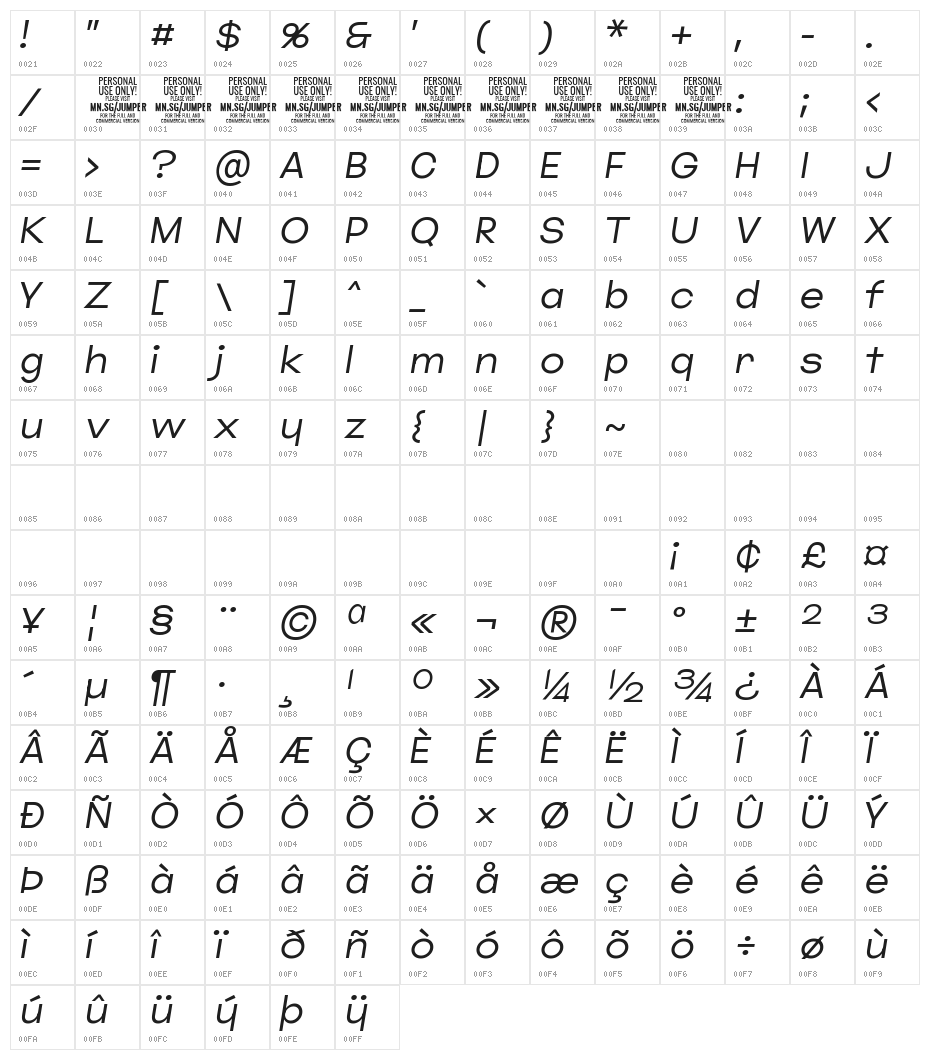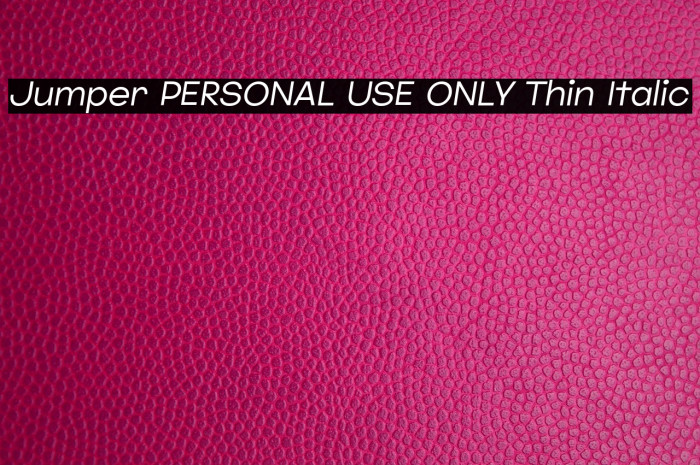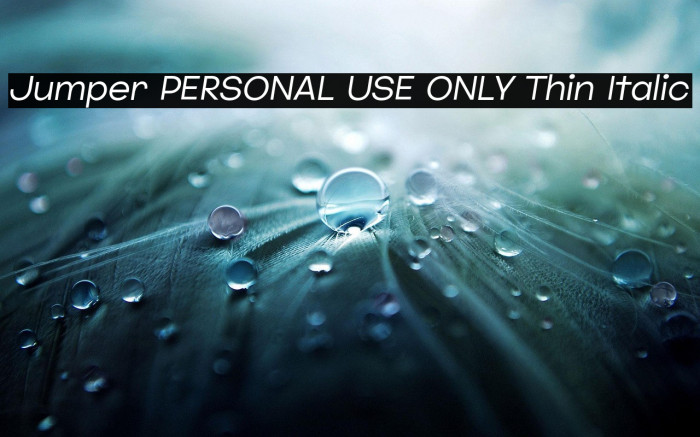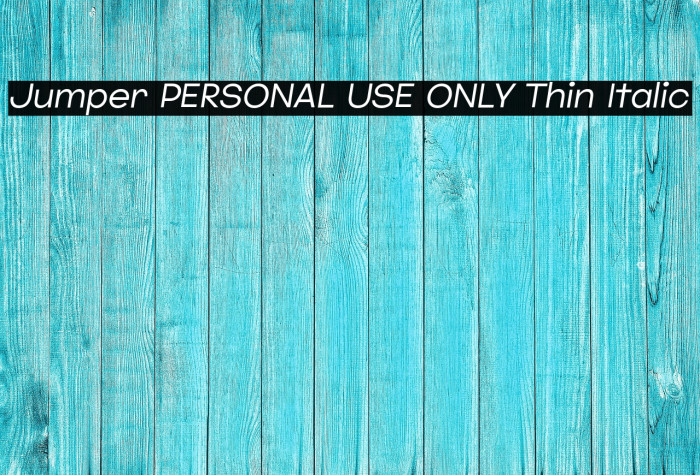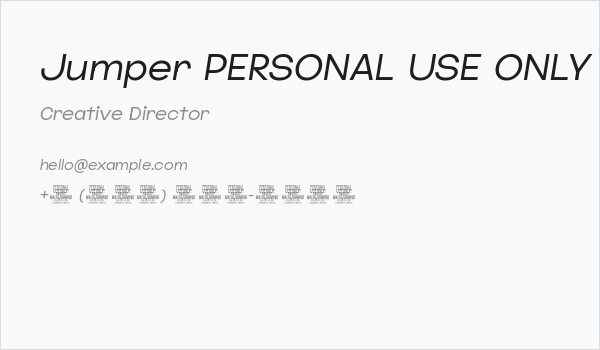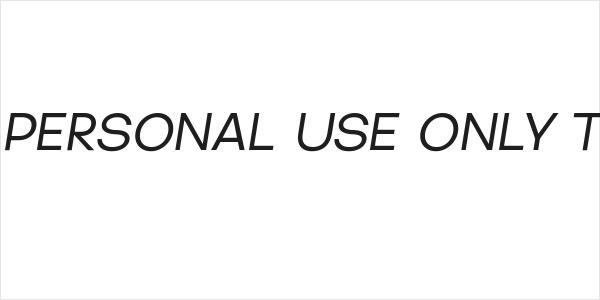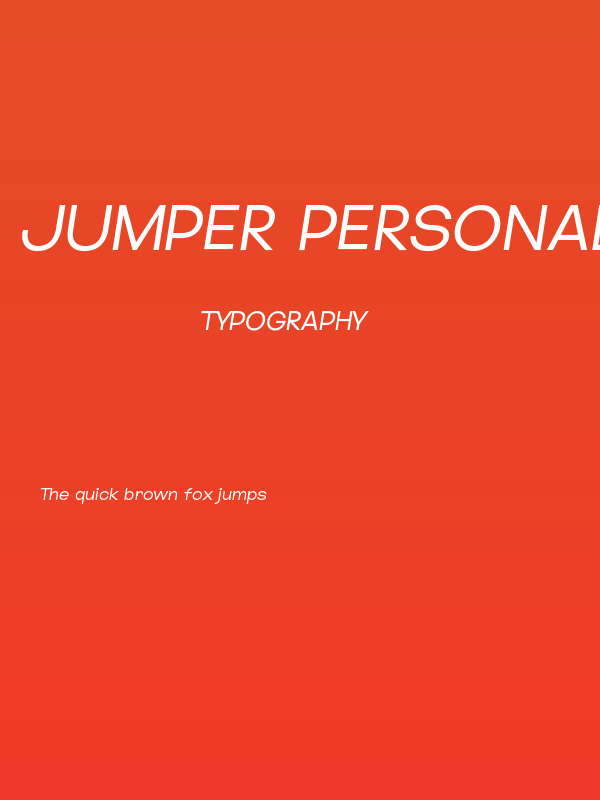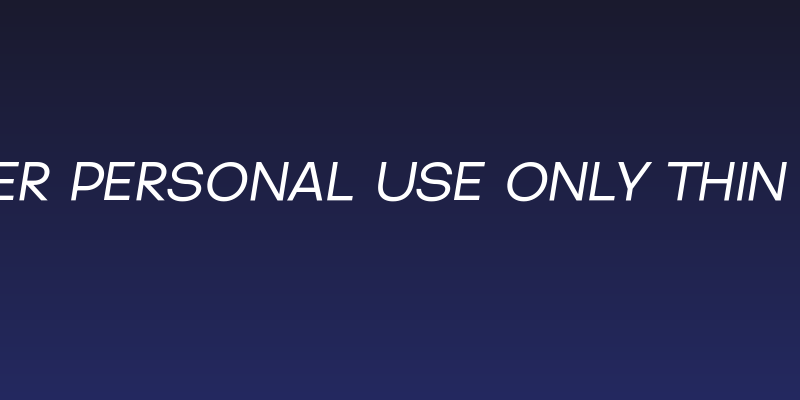
Jumper PERSONAL USE ONLY Thin Italic Font
Jumper PERSONAL USE ONLY Thin Italic Description
This font features a sleek, modern design with a thin, italicized style. The characters are elegantly slanted, giving a sense of motion and fluidity. The uppercase and lowercase letters maintain a consistent height, contributing to a harmonious appearance. The numerals and special characters are designed with the same thin strokes, ensuring uniformity across all elements. The font's minimalist aesthetic makes it suitable for contemporary designs, where a clean and sophisticated look is desired.